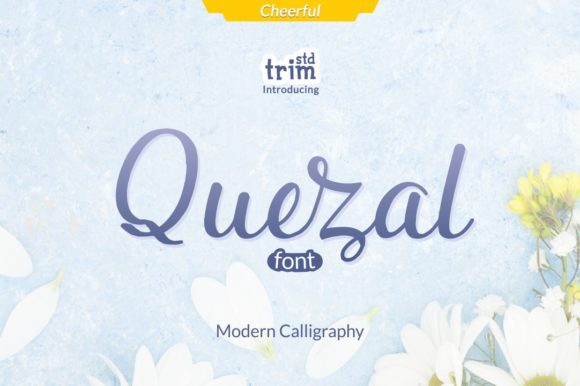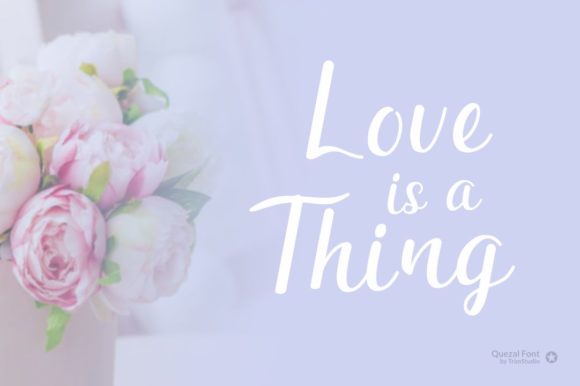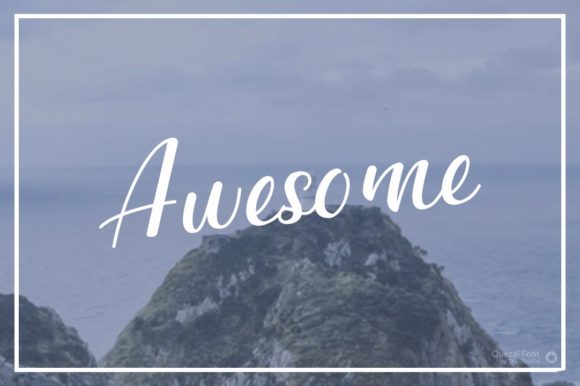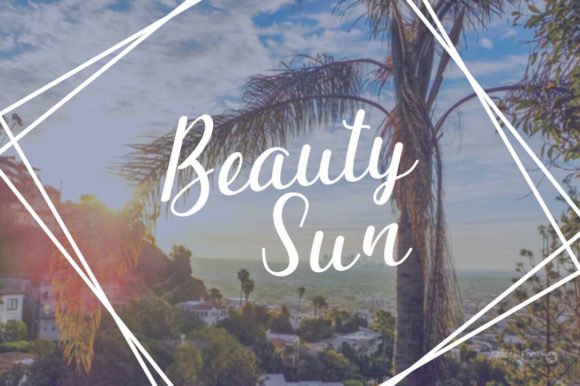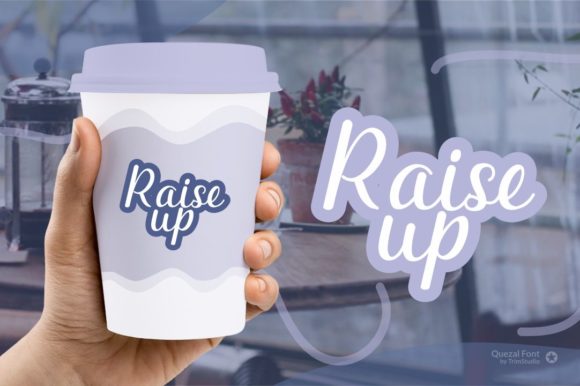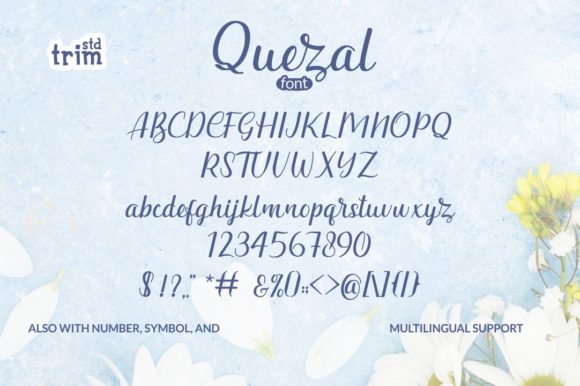
Quezal Font
About Quezal Font
Quezal embodies fun, playfulness and authenticity. This enchanting handwritten font will turn any creative idea into a true standout.